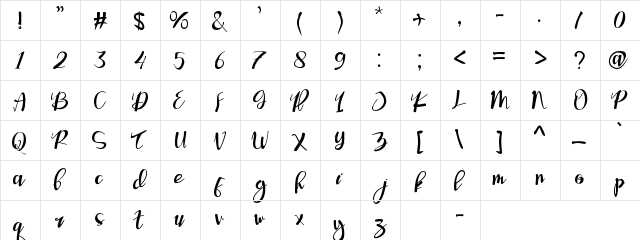
Vennesia Regular
| Foundry | Andre FD |
| Designer | AndreyFD |
Design Context for Vennesia Typeface
Vennesia is a composed and adaptable typeface that performs quietly and consistently across a wide range of design contexts.